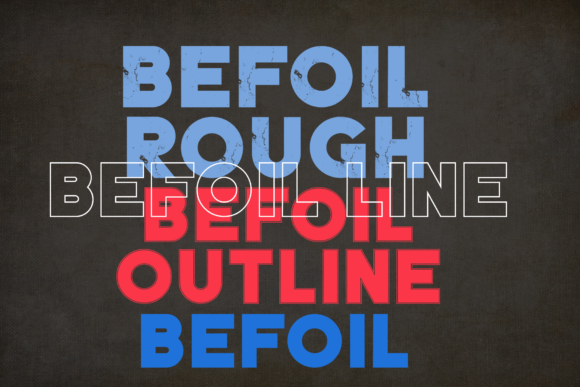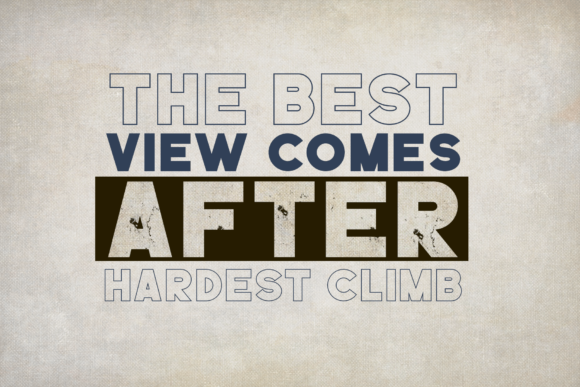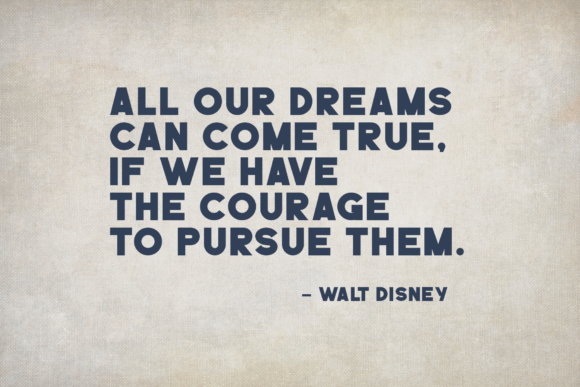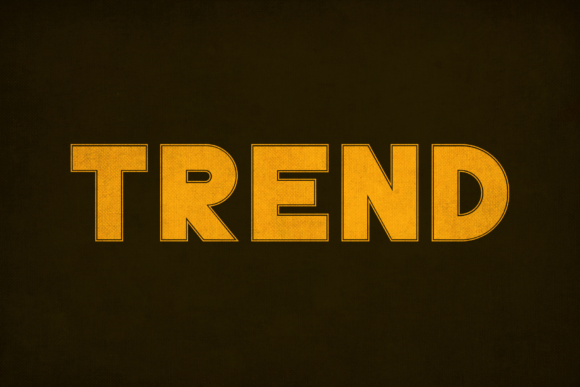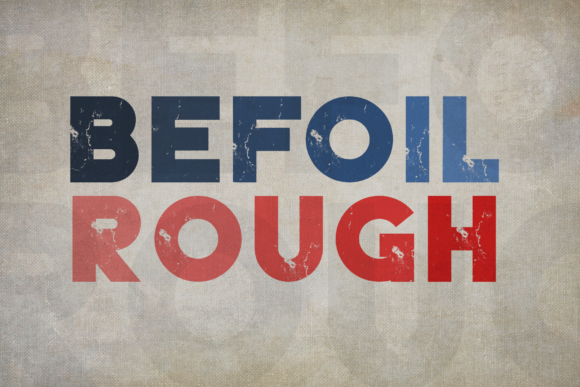
Discovering the Perfect Font: The Befoil Moment
You know that moment when you’re working on a project and you just can’t seem to find the right font? The one that makes your design pop and leaves a lasting impression? For designers, it’s a constant quest to find that elusive perfect font. But what if we told you that we’ve found it?
Enter the Befoil Font, a bold sans serif font that’s been carefully handcrafted to become a true favorite. Whether you’re working on a busy background or need a standout headline, Befoil Font is the perfect solution. Its versatility and unique design make it a valuable addition to any designer’s toolkit.
Befoil Font Key Features
- Font Family: Befoil is a sans-serif font family designed for digital use.
- Unique Characteristics: Befoil features a unique blend of modern and minimalist design elements, with subtle rounded edges and a clean, open feel.
Befoil Font Review
Overall, I have mixed feelings about the Befoil font. While it has some great features, it also has some limitations that might make it not suitable for all projects.
- ✨ Unique aesthetic: The Befoil font has a distinct, futuristic feel that can be perfect for sci-fi or tech-related projects.
- ✨ Good legibility: Despite its futuristic appearance, the font is still relatively easy to read, especially at larger font sizes.
- ✨ Customizable: The font comes in a range of weights and styles, making it easy to customize to suit your project’s needs.
- ⚠️ Limited versatility: While the font is great for sci-fi or tech projects, it might not be the best choice for more traditional or formal projects.
- ⚠️ Can be overpowering: The font’s bold, futuristic style can be overwhelming if used in large quantities or at smaller font sizes.
- ⚠️ Limited language support: The font may not support all languages, which could be a limitation for projects that require multilingual support.
Overall, I would recommend the Befoil font for projects that require a bold, futuristic look. However, it may not be the best choice for more traditional or formal projects.
The Befoil Font is ideal for creating modern, sleek designs that require a unique and eye-catching typography. Some common use cases include:
- Brand identity and logos
- Print materials (e.g., business cards, brochures, etc.)
Comparison to Befoil Font: Great Vibes Font has a more refined and polished feel compared to Befoil Font, making it a better choice for high-end branding. Befoil Font, on the other hand, has a more playful and dynamic feel, making it better suited for creative and artistic projects.
Comparison to Befoil Font: Pacifico Font has a more laid-back and effortless feel compared to Befoil Font, making it a better choice for brands that want to convey a sense of relaxation. Befoil Font, on the other hand, has a more energetic and dynamic feel, making it better suited for creative and innovative projects.